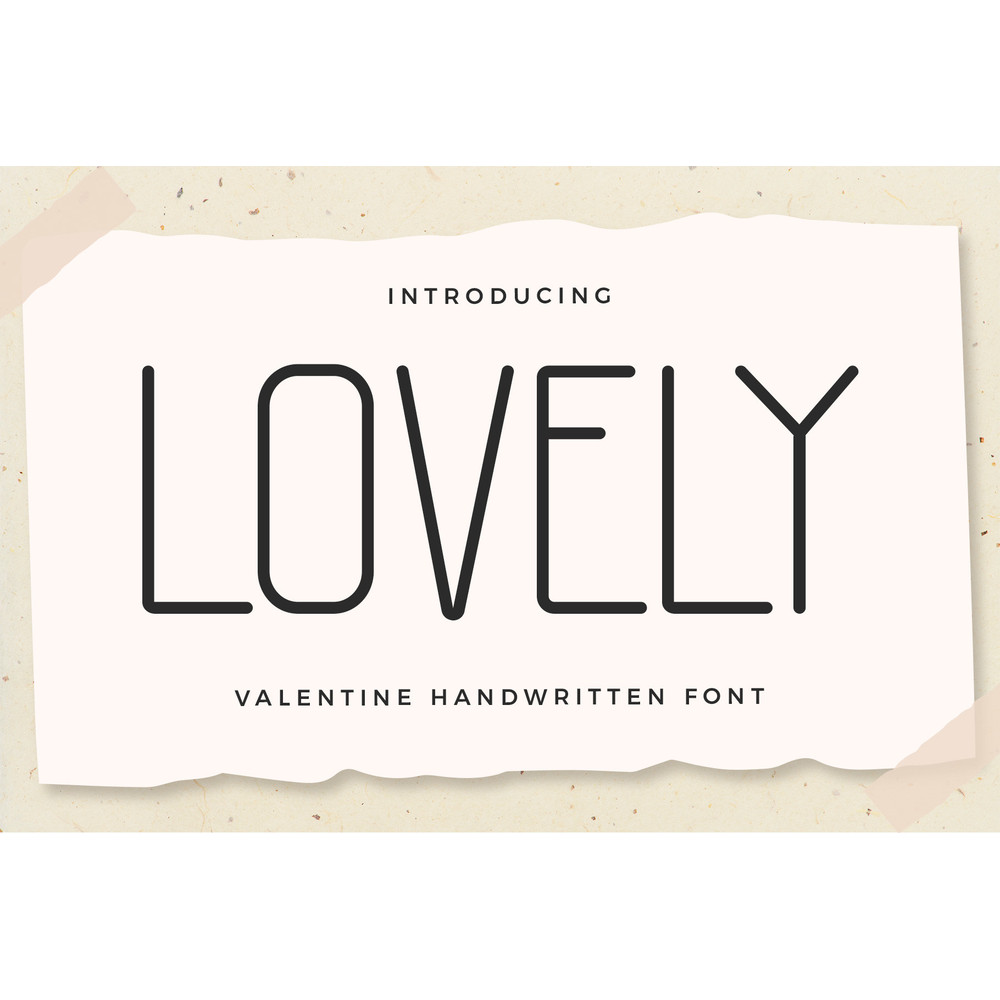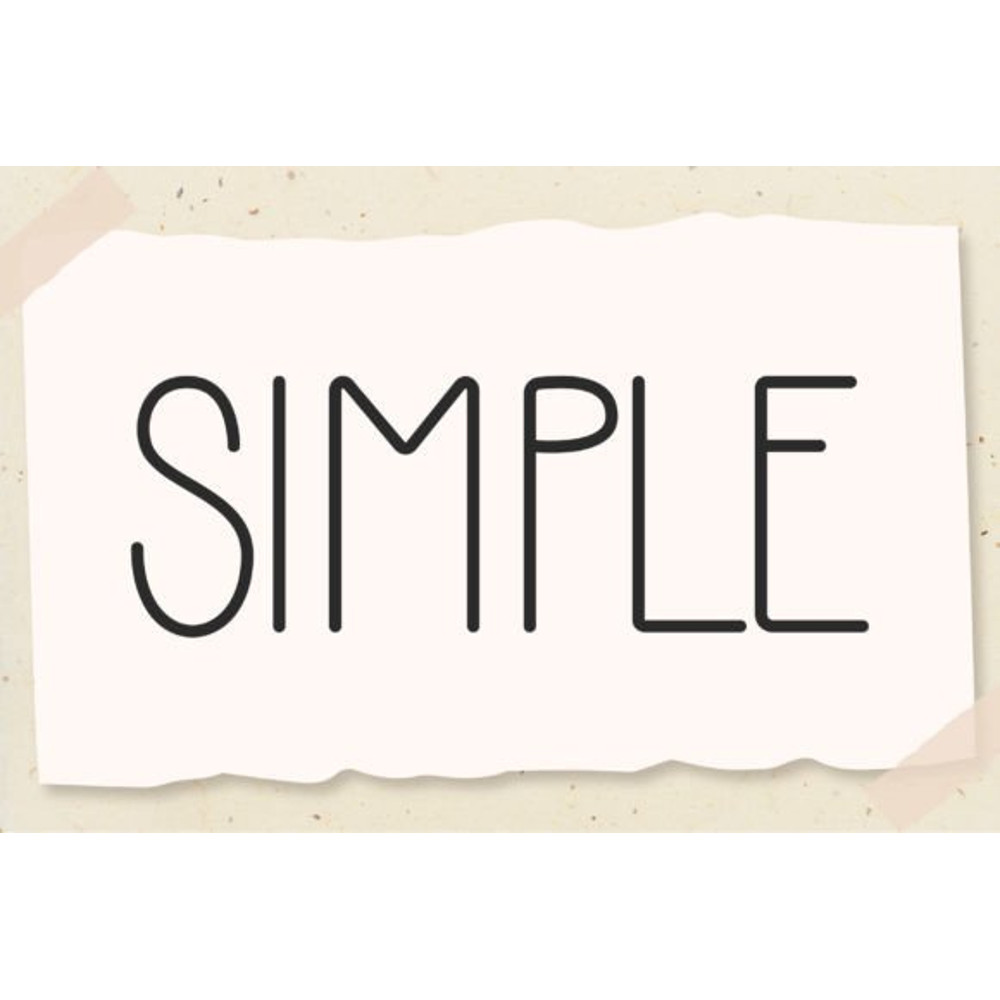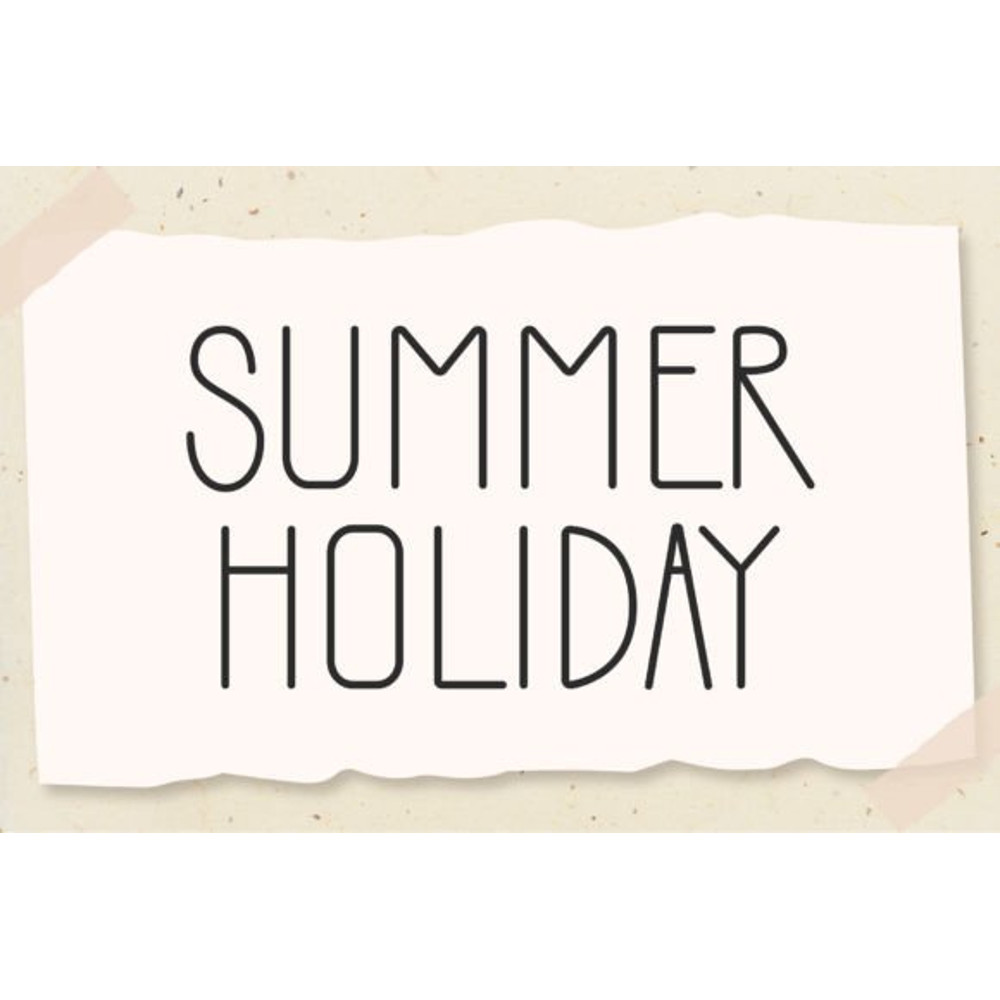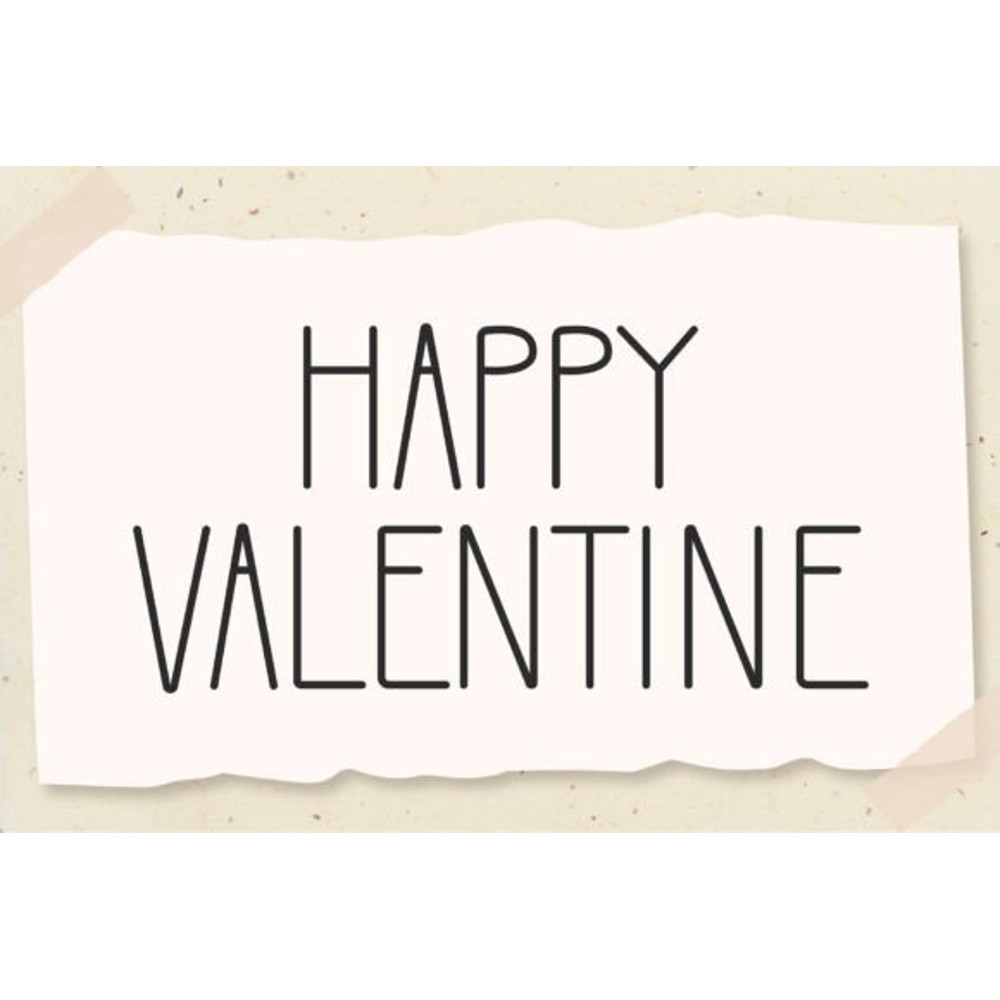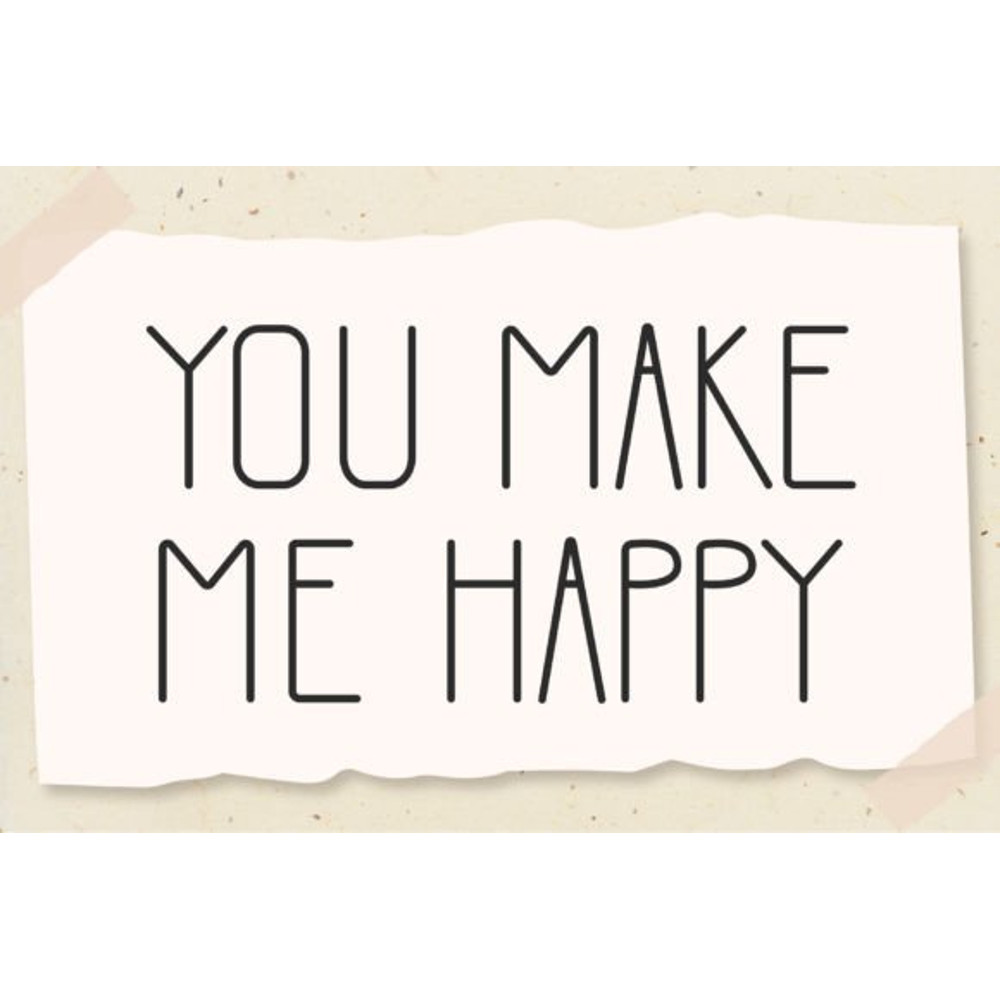
Lovely is a monoline and skinny handwritten font. It is suitable for winter and kids’-related products, t-shirts, stickers, cover books, children’s books, social media posts, and much more! Lovely is PUA encoded, which means you can access all of the glyphs and swashes with ease!